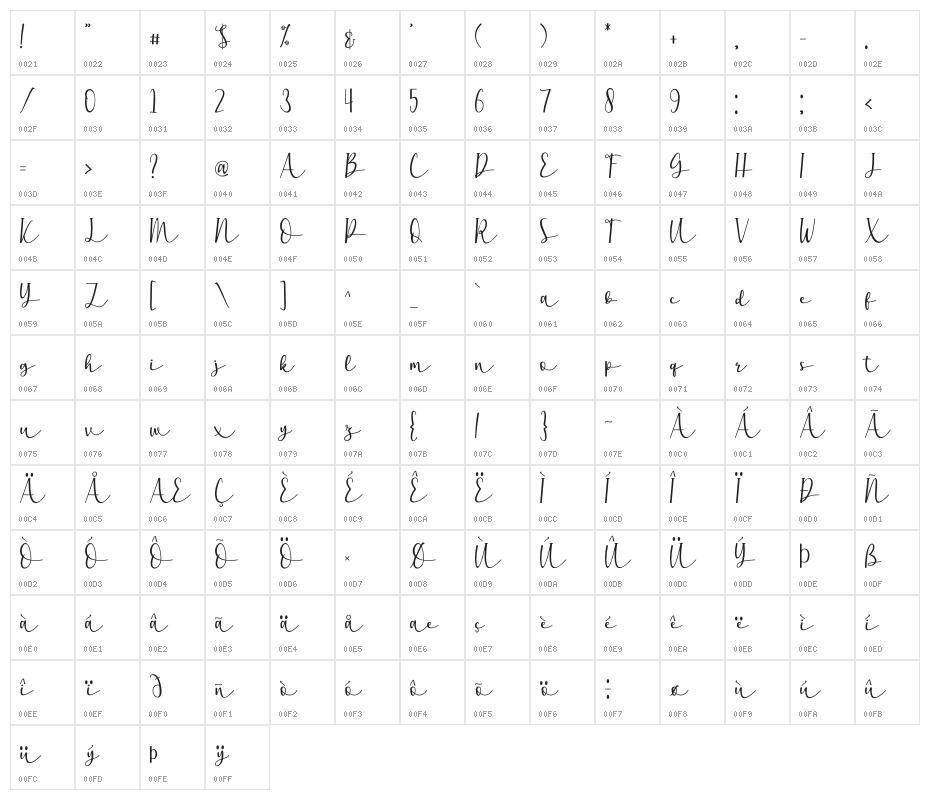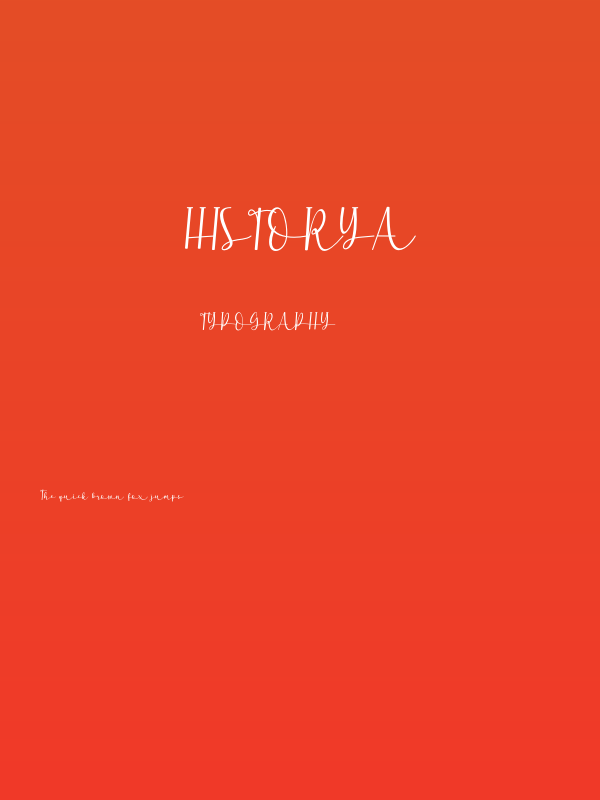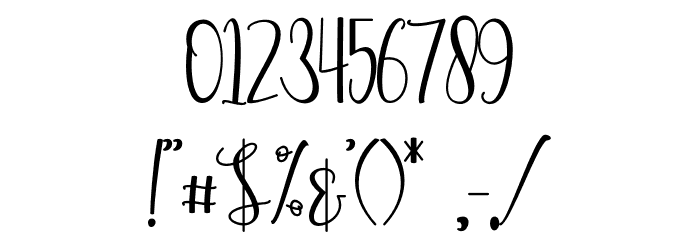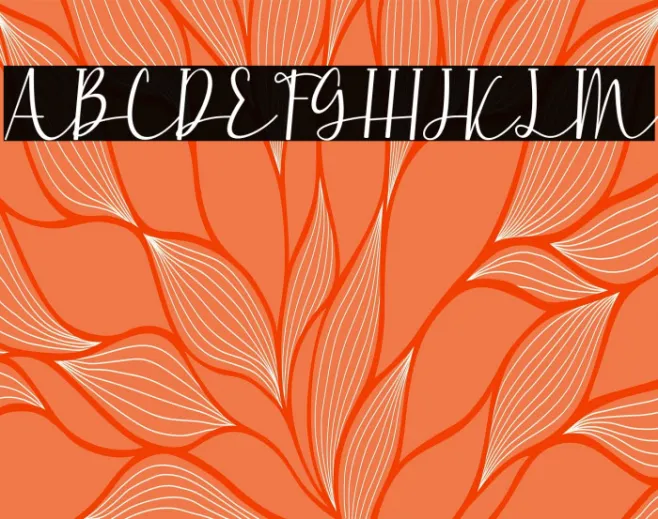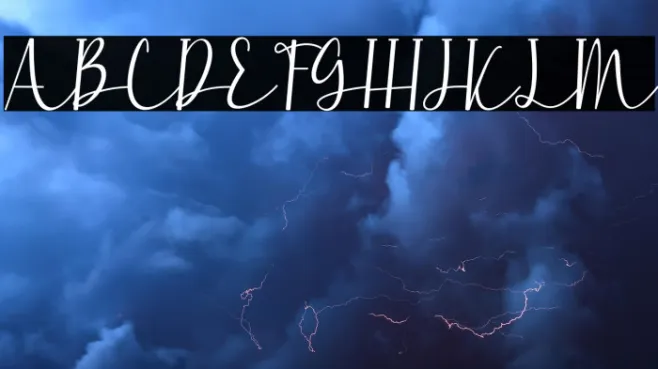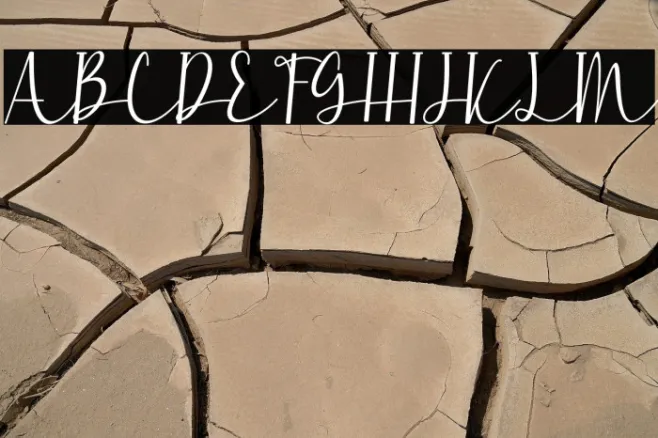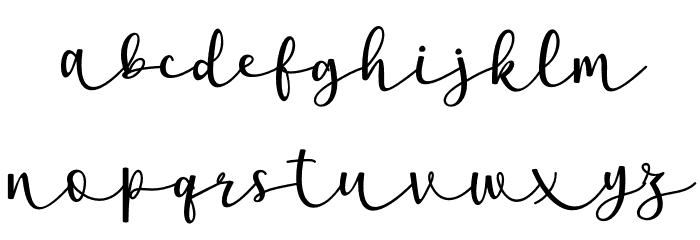
Historya Font
Historya Description
This font features a flowing, handwritten style that exudes elegance and charm. The uppercase letters are tall and slender with a slight slant, while the lowercase letters maintain a consistent, smooth flow. The numerals are distinct and maintain the same graceful style as the letters. Special characters are creatively designed, adding a whimsical touch to the overall appearance. The font's strokes vary in thickness, providing a dynamic and lively feel. It is perfect for projects that require a personal, artistic touch.